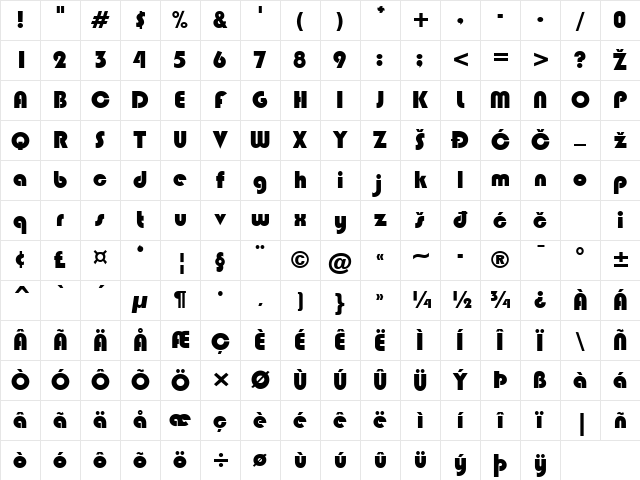
BlippoBlack Regular Free Font
BlippoBlack Regular
Complete BlippoBlack Regular glyph index. Displaying only characters natively supported by BlippoBlack Regular font.
Design Context for BlippoBlack
BlippoBlack is a composed and adaptable typeface that performs quietly and consistently across a wide range of design contexts.